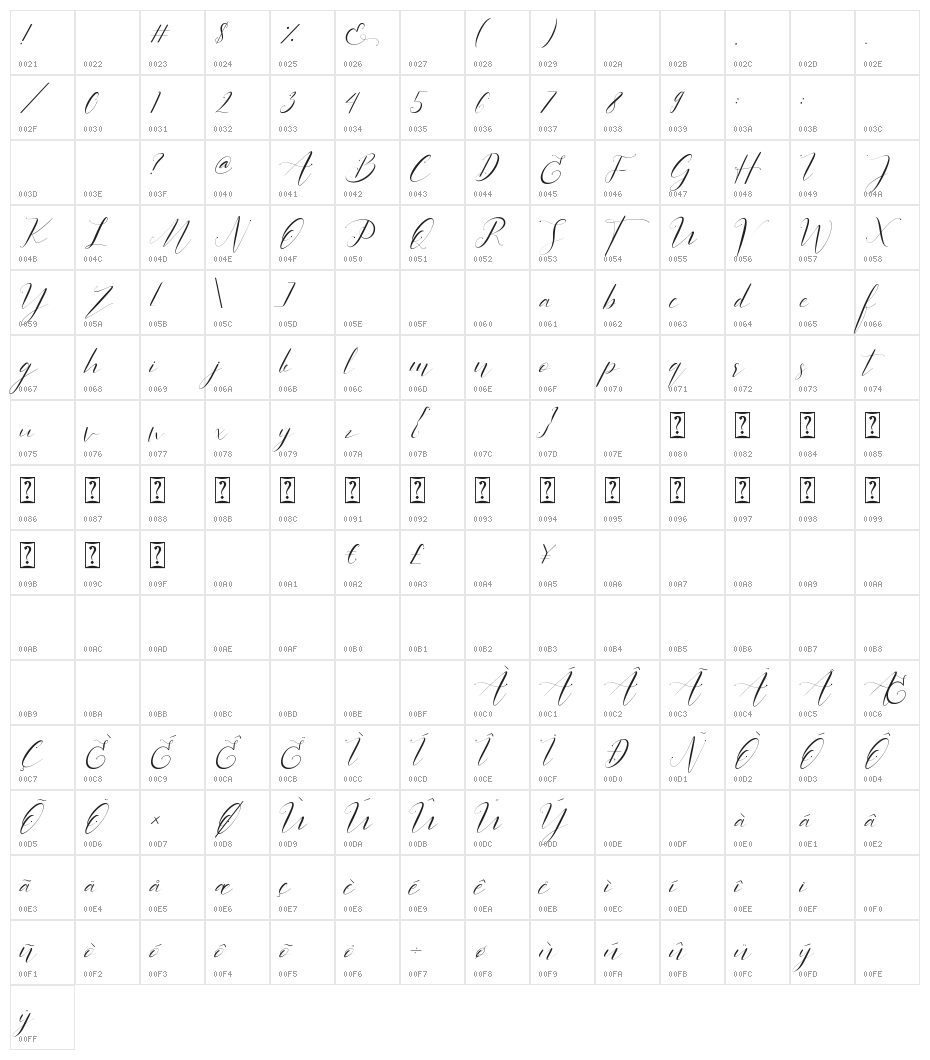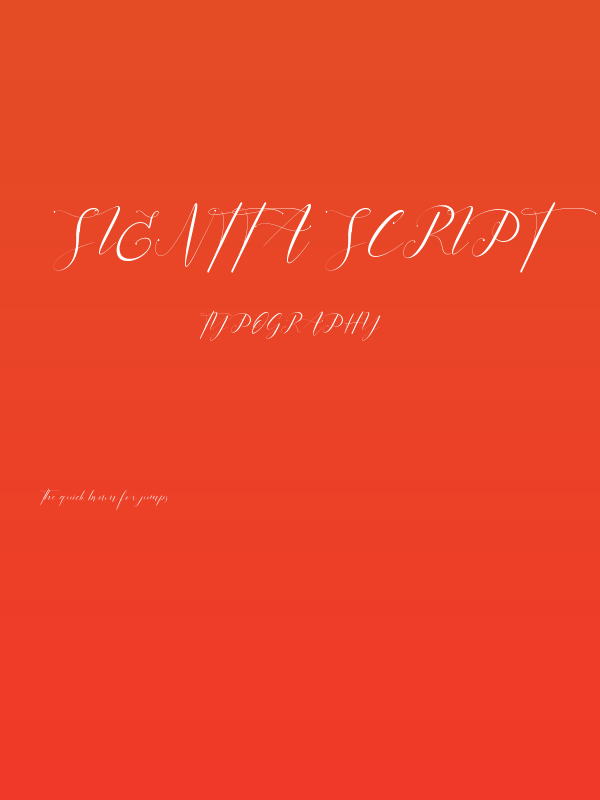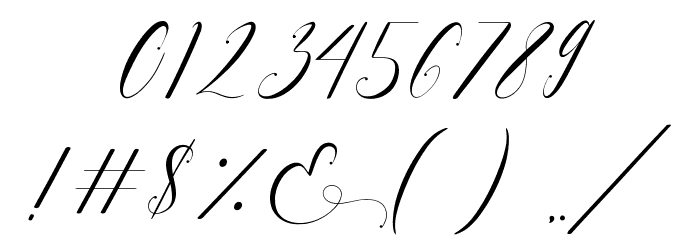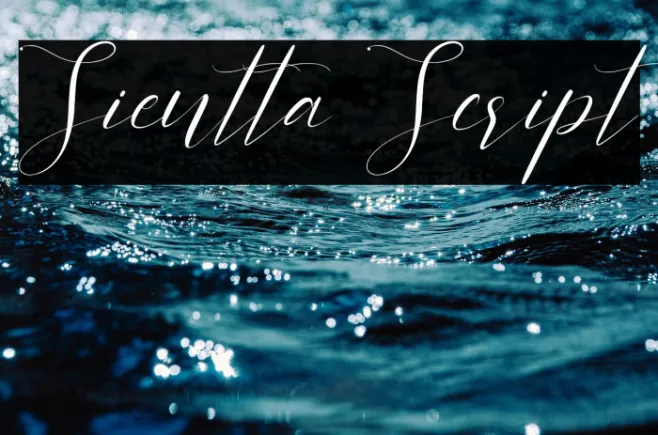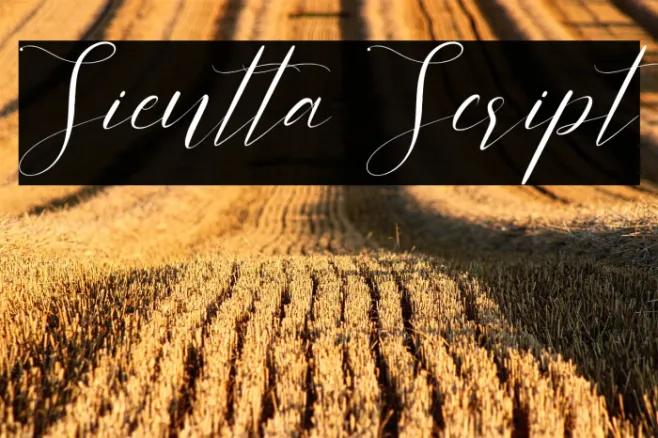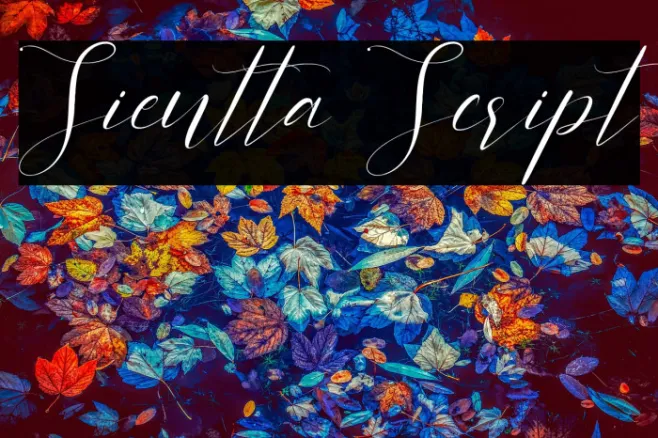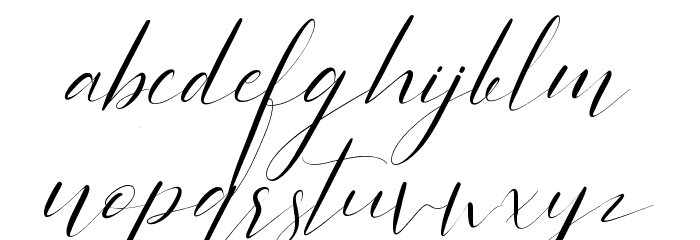
Sientta Script Font
Sientta Script Description
This elegant script font features a flowing, cursive style with delicate, sweeping lines and graceful curves. The uppercase letters are characterized by their tall, slender forms and intricate loops, while the lowercase letters maintain a consistent fluidity, enhancing the overall elegance. The numerals and special characters are crafted with the same attention to detail, ensuring a cohesive appearance across all elements. This font's high contrast between thick and thin strokes adds a touch of sophistication, making it ideal for formal and decorative applications.